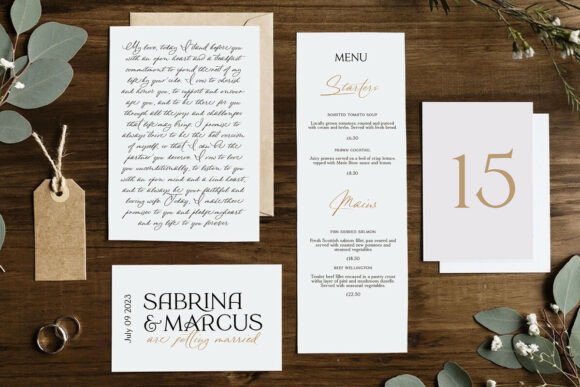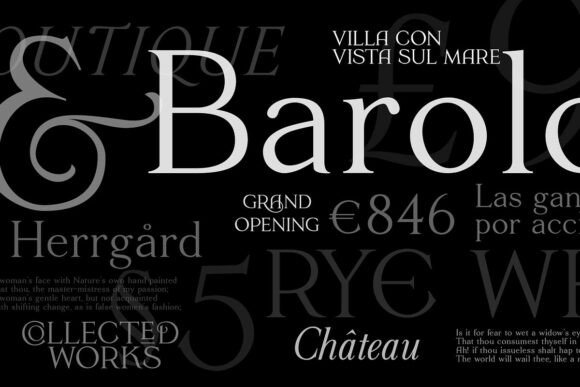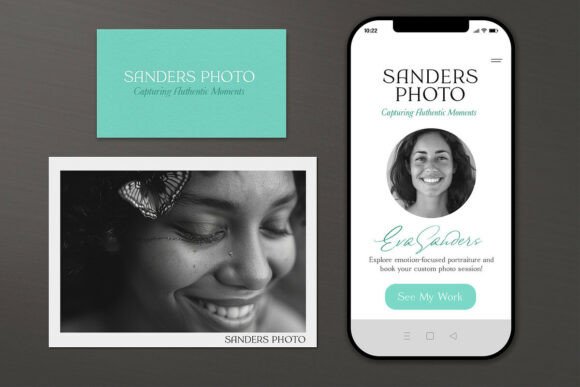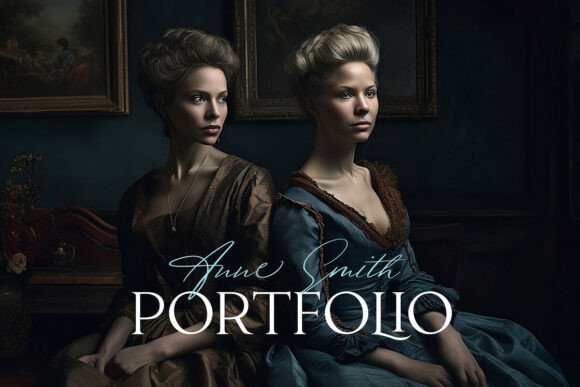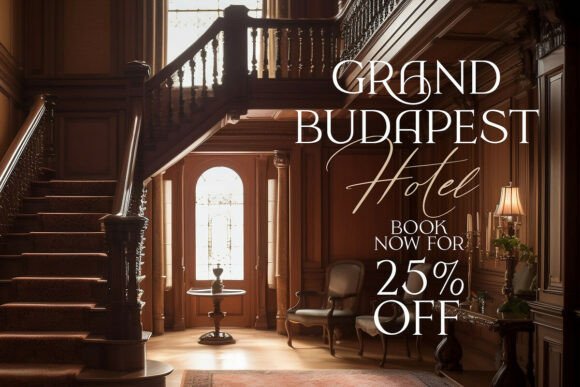
Introduction to Luxurimo Font
Imagine you’re brainstorming ideas for your next creative project, and you stumble upon the perfect font that elevates your design to the next level. For many designers, this moment of serendipity is what sets their project apart from the rest. One such game-changing font is the Luxurimo Font, a sophisticated modern font duo that combines elegance with refinement.
As a valuable resource for designers, Luxurimo Font offers a unique balance of classic serif and flowing handwriting styles, making it perfect for luxury branding, wedding designs, and high-end fashion projects. This versatile font bundle is ideal for logos, invitations, social media graphics, and elegant branding materials, allowing designers to create high-quality, visually appealing content with ease.
Key Features of Luxurimo Font
- High-quality, elegant design ideal for creative projects and branding materials.
- Unique characteristic: Luxurimo Font features a sophisticated, luxurious feel, making it perfect for high-end creative projects.
Honest Review: Luxurimo Font
I recently had the chance to work with the Luxurimo Font, and I must say it’s a high quality addition to any design project. This elegant script font is perfect for creative projects that require a touch of sophistication.
One of the standout features of the Luxurimo Font is its transparent background, which makes it incredibly versatile. I loved using it for text overlays and graphics, and it worked seamlessly with my design software.
- Wide range of font sizes and styles to choose from
- Not suitable for use as a primary font for body text due to its script style
- Limited font weights and styles compared to other premium fonts
Tips for Getting the Most Out of Luxurimo Font
Experiment with different font sizes and styles to get the most out of Luxurimo Font. You can also use it in combination with other fonts to create a unique design. Ensure you have a transparent background on your design resource to get the best out of this font.
The Luxurimo Font is ideal for use in creative projects such as logos, business cards, brochures, and presentations. It is also suitable for use in digital media such as websites and social media graphics. With its high-quality design and transparent background, Luxurimo Font is a valuable design resource for any creative project.